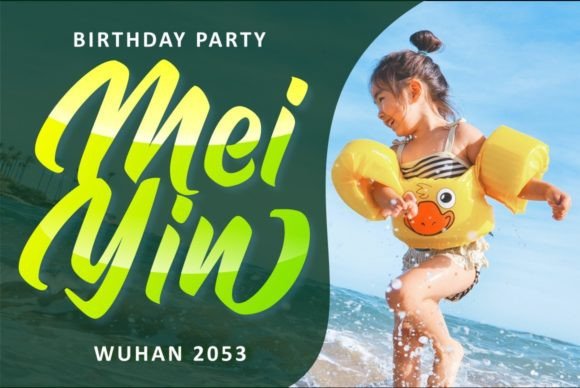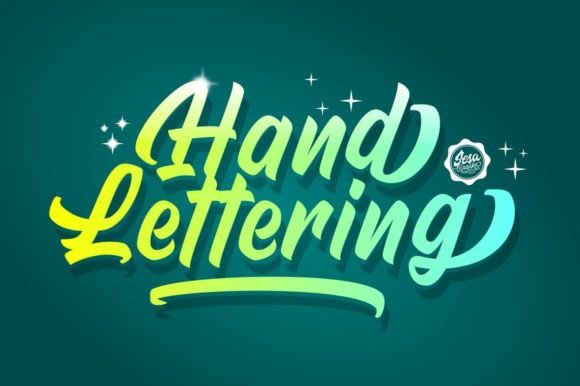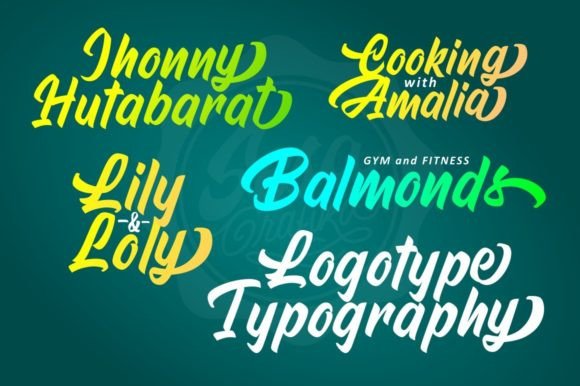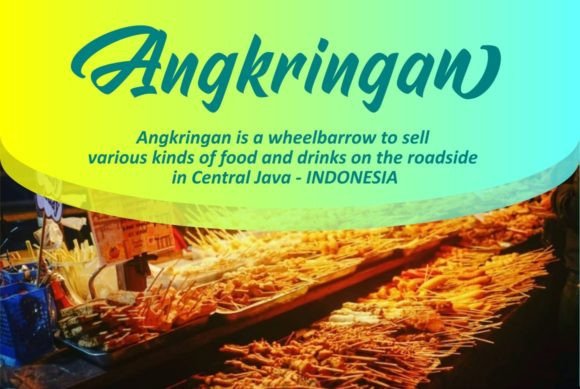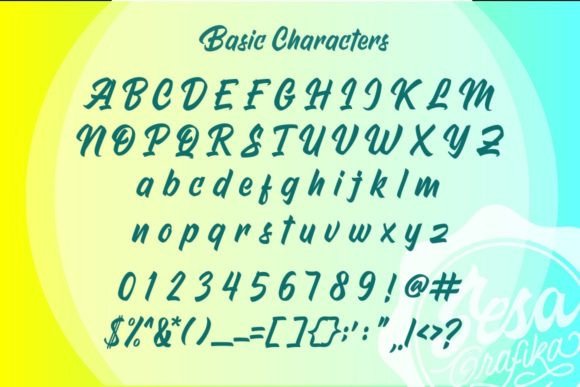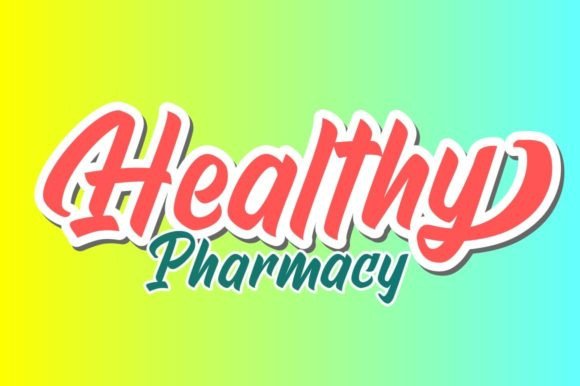
Introduction to Masbrushy Font
Have you ever stared at a blank canvas, eager to bring a creative project to life, only to find the perfect font eluding you? That’s where the Masbrushy Font comes in – a game-changing addition to your design arsenal. This bold and classic handwritten font is a breath of fresh air, with its clean and quirky charm making it an instant favorite among designers.
Whether you’re working on a logo, branding, social media graphics, or a DIY project, the Masbrushy Font is the perfect fit. With its high-quality design and PUA encoding, you’ll have access to all the glyphs and swashes you need to create stunning visuals. Plus, it’s available for free download, making it a valuable resource for designers on a budget.
- Unique, Hand-Drawn Design: Masbrushy Font offers a distinctive, hand-drawn aesthetic that sets it apart from other fonts, making it perfect for creative projects.
- Comprehensive Character Set: Masbrushy Font includes a wide range of characters, including uppercase and lowercase letters, numbers, and punctuation marks.
- Perfect for Creative Projects: With its unique design and high-quality features, Masbrushy Font is an excellent choice for designers, artists, and writers working on creative projects.
Honest Review: Masbrushy Font
I recently had the chance to try out the Masbrushy Font and I must say it’s a unique addition to any design project. As a designer, I’m always on the lookout for high quality fonts that can bring a fresh touch to my creative projects.
What works well with the Masbrushy Font is its versatility. The font is available for free download, making it a great resource for designers on a budget. Additionally, the transparent background allows for seamless integration with any design element, giving designers the flexibility to create stunning visuals. The font’s bold and playful style is perfect for projects that need a bit of whimsy.
Here are some of the key features that stood out to me:
- Unique and bold style
⚠️ However, one thing to note is that the font may not be suitable for more formal or professional projects, as its playful style may come across as unprofessional. Overall, the Masbrushy Font is a great addition to any designer’s toolkit, and I would definitely recommend it for creative projects.
For the most out of Masbrushy Font, use it for headings and titles in your designs. It’s perfect for creative projects that require a unique and eye-catching font. Some common use cases include branding materials, social media graphics, and digital presentations.